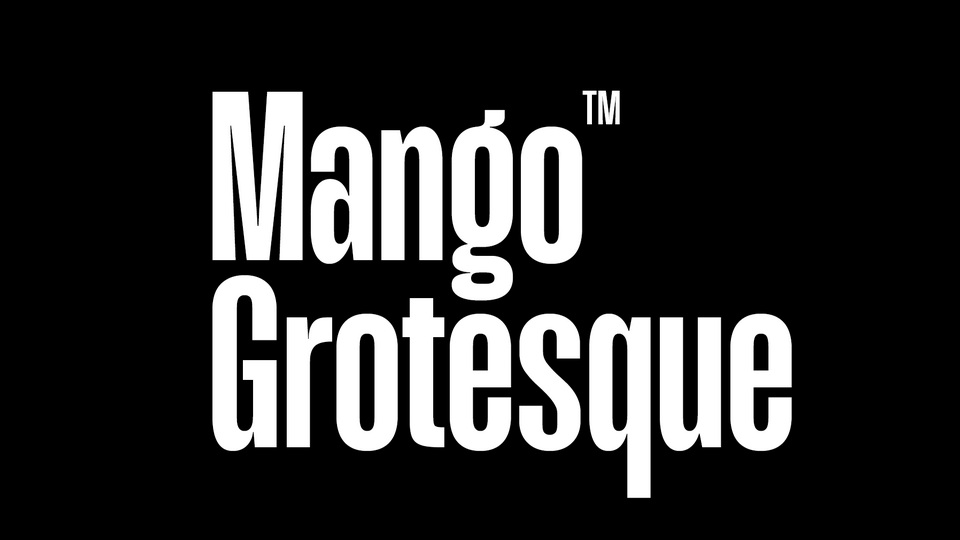
Download Mango Grotesque font, a beautiful condensed sans serif typeface designed for robust and high-impact use. Geometric and clear letterform of Mango Grotesque is perfect for eye-catching posters, company logo, movie title and picture’s captions.
Designer: Rajesh Rajput